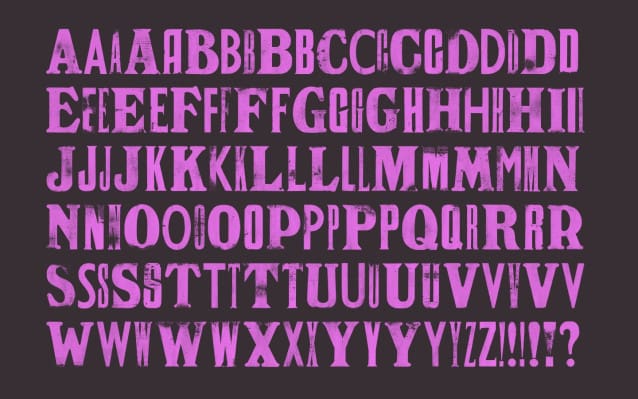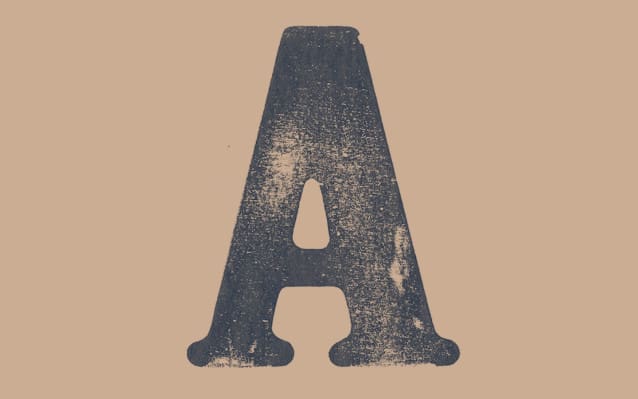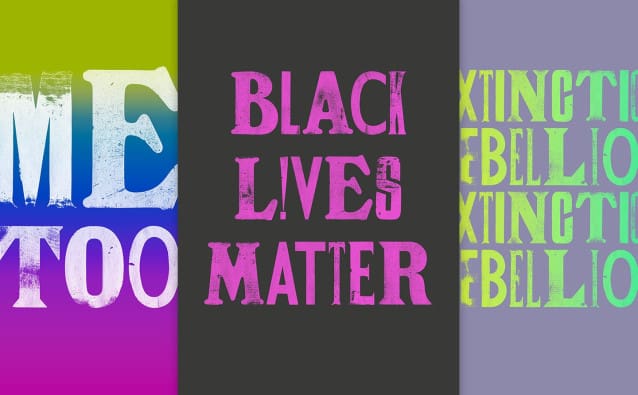
PlymouthPress Font
PlymouthPress Font, An experimental image font made using the University of Plymouth’s unique letterpress workshop, developed by staff and students from the BA(Hons) Graphic Design course.
PlymouthPress uses bitmap images to render each glyph, meaning the textures present in the original prints have been retained, in a way that is not possible with traditional vector-based fonts.
The font employs OpenType scripting to automatically cycle through a range of alternate glyphs for each character, giving a ‘random’ appearance as you type. Alternates can also be chosen manually in supported applications.